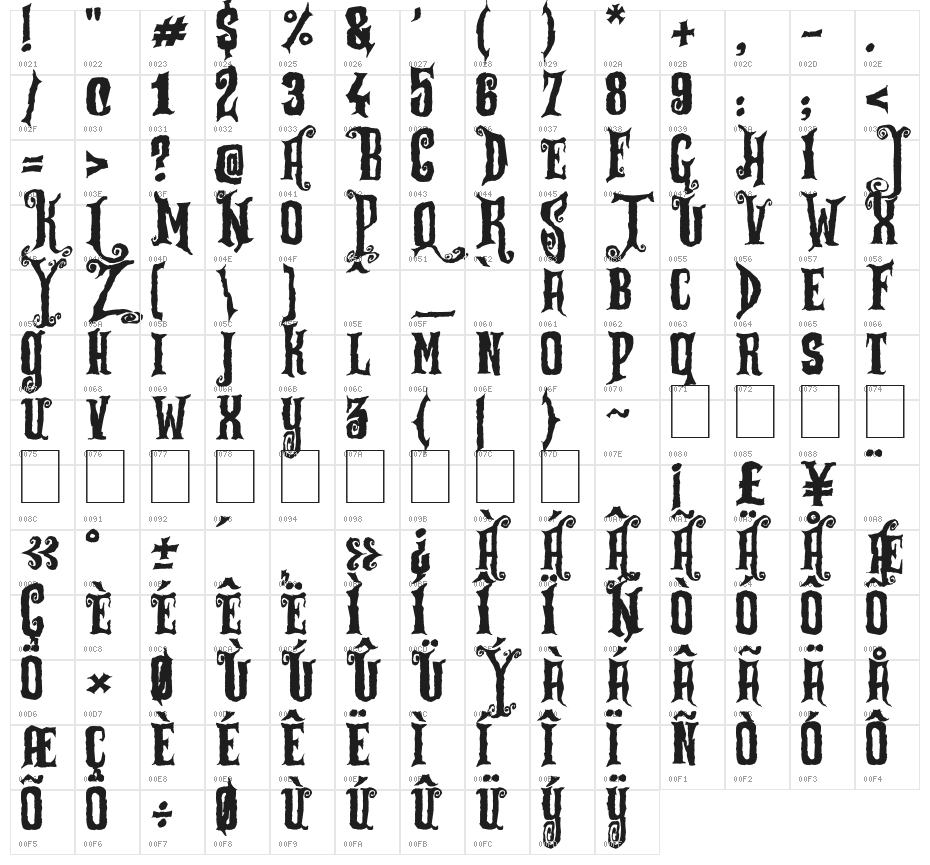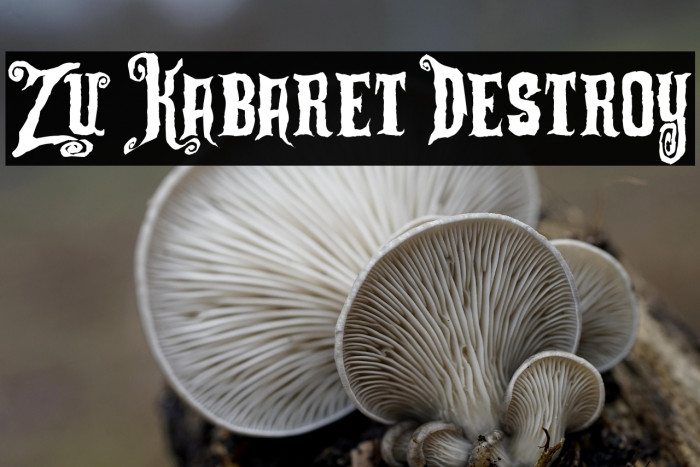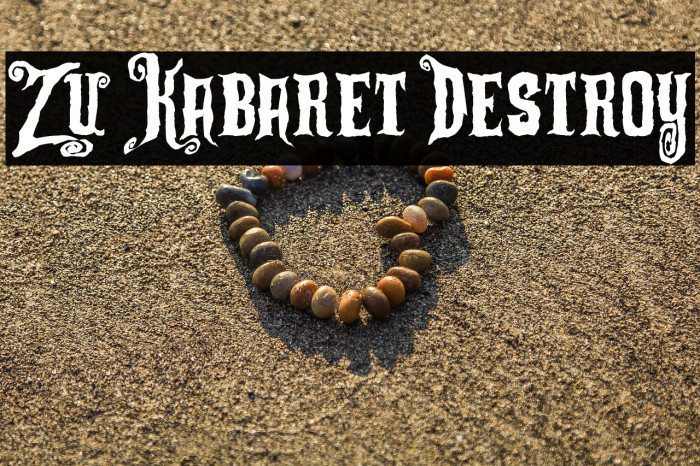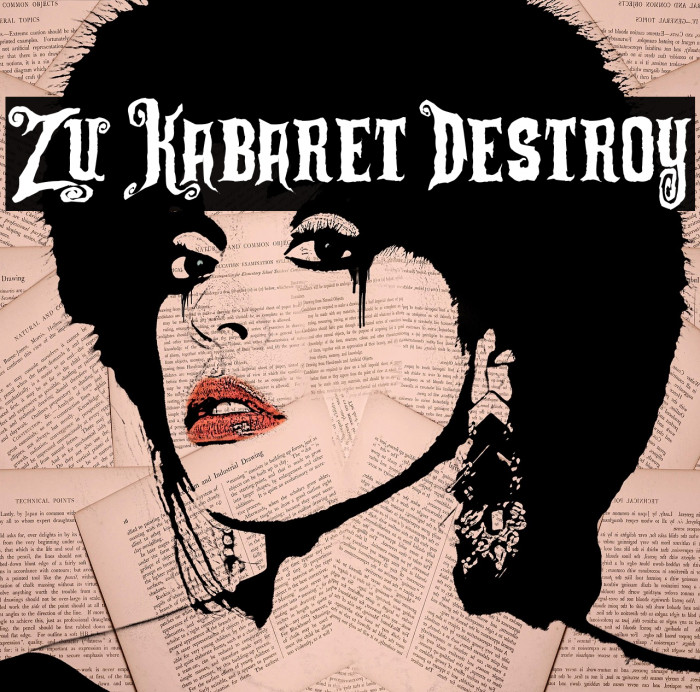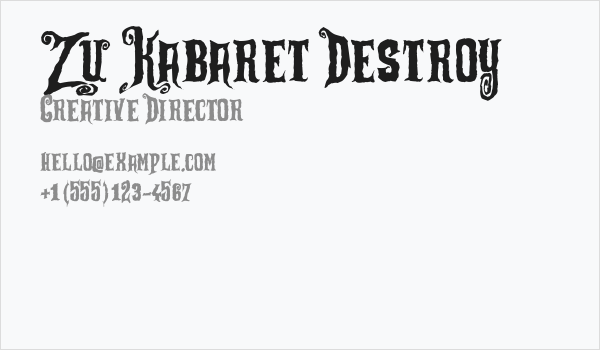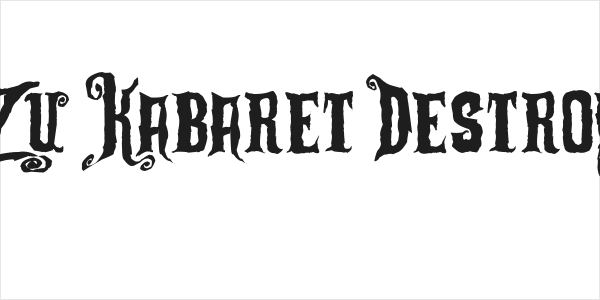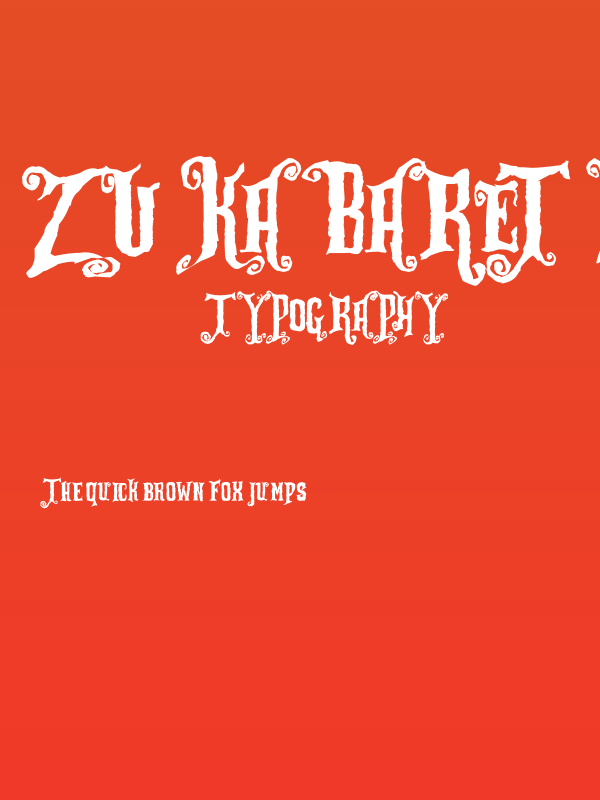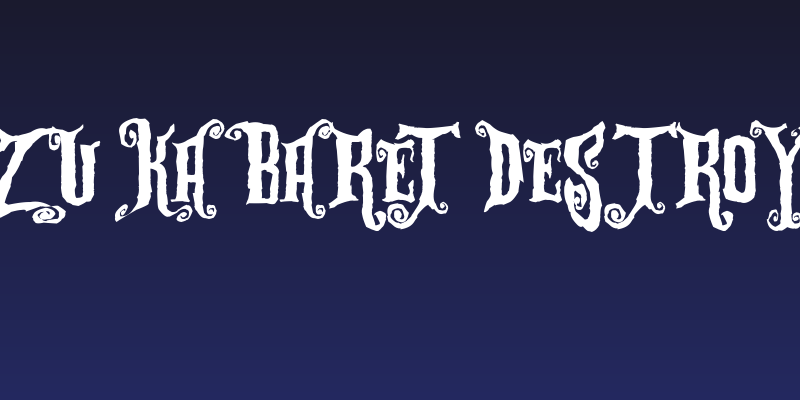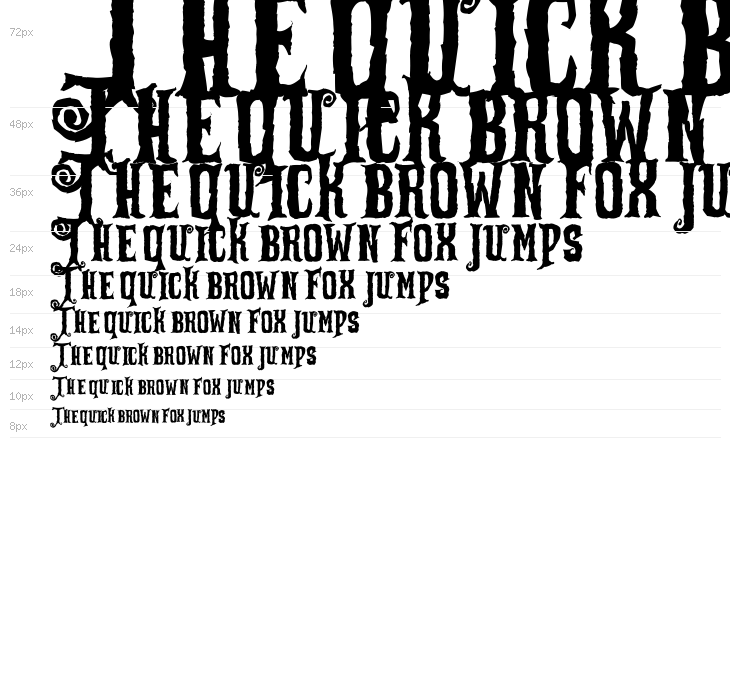
Zu Kabaret Destroy Font
Zu Kabaret Destroy Description
This font features a highly decorative and theatrical style, reminiscent of vintage cabaret posters and circus themes. The uppercase letters are bold and ornate, with swirling embellishments that give a sense of movement and flair. The lowercase letters maintain this decorative style but are slightly more subdued, providing a nice balance. Numbers and special characters follow the same dramatic design, ensuring consistency across all glyphs. The font's unique character is perfect for projects that require a touch of whimsy and nostalgia, such as themed event posters, playful branding, or artistic book covers.